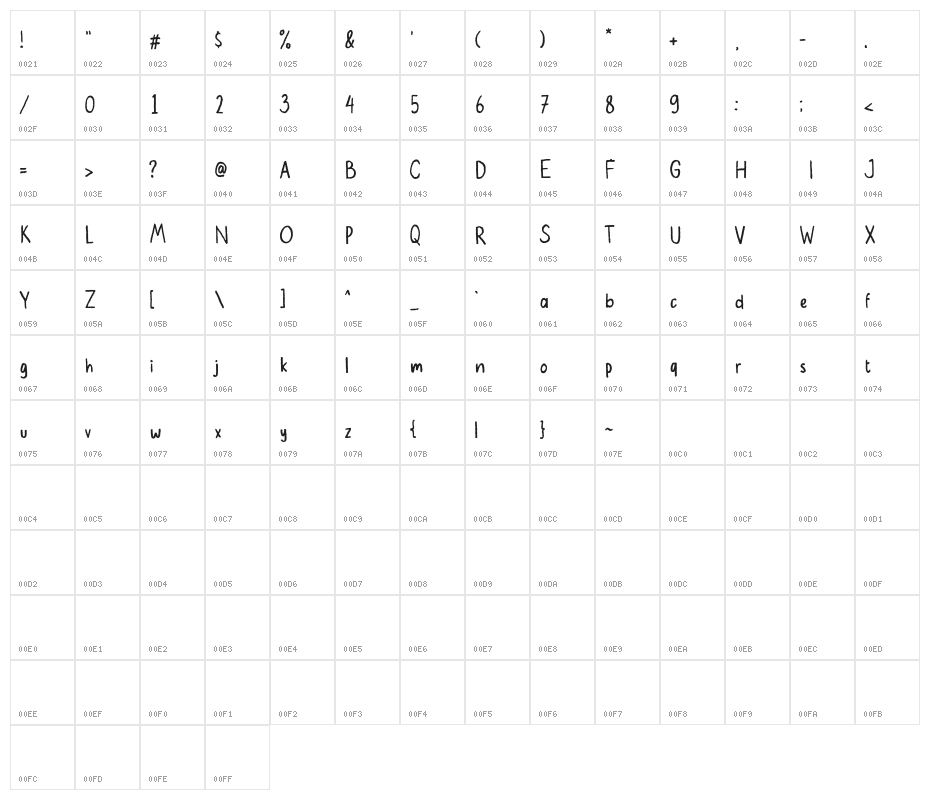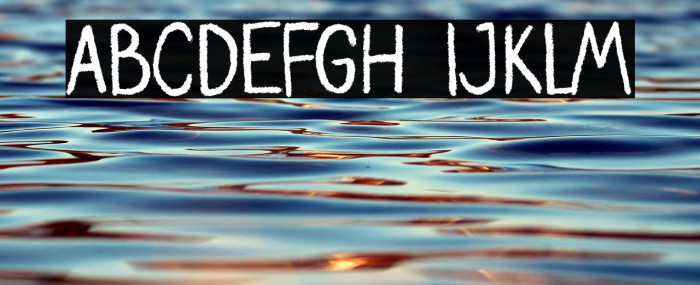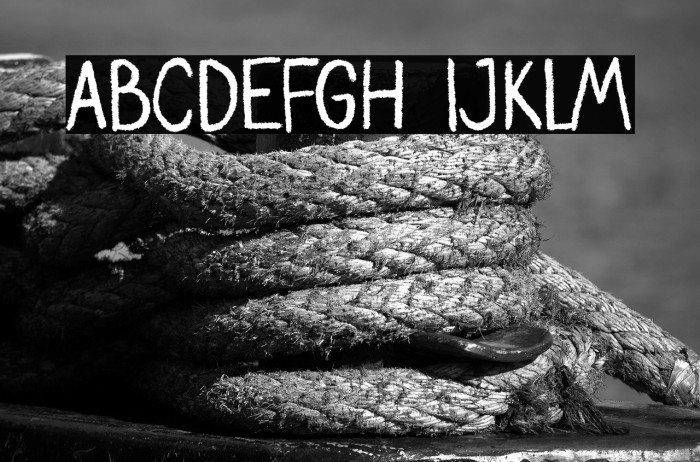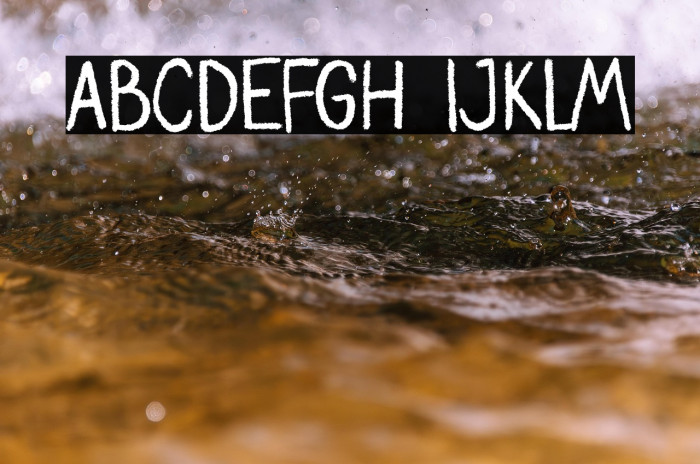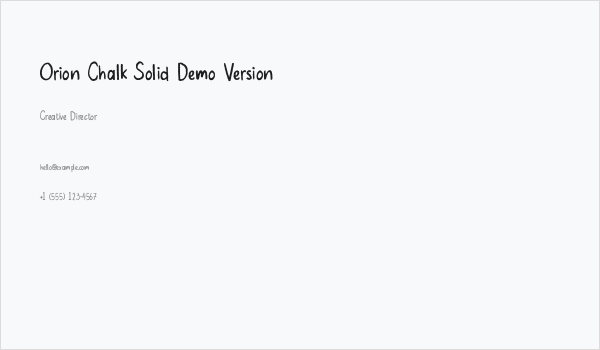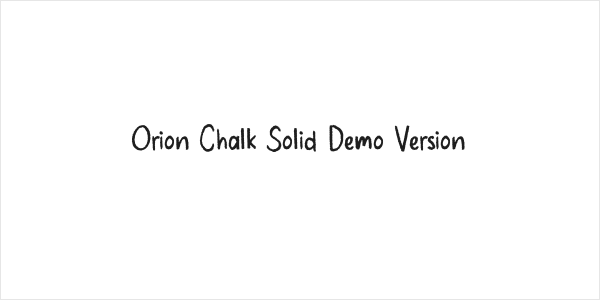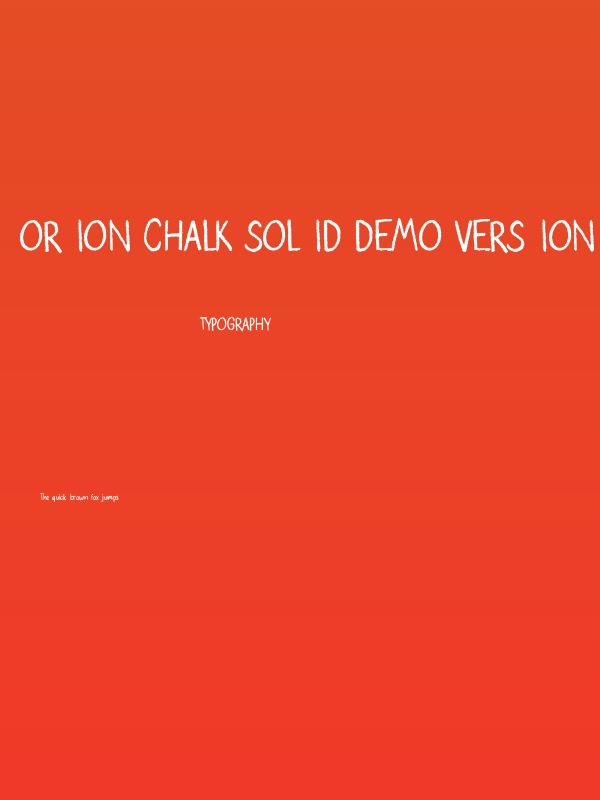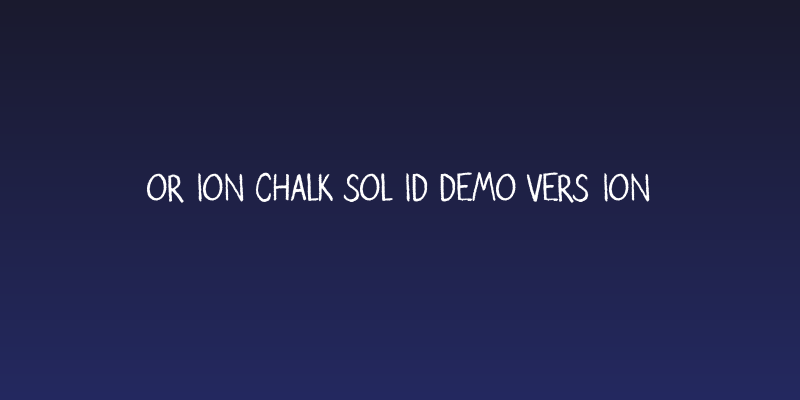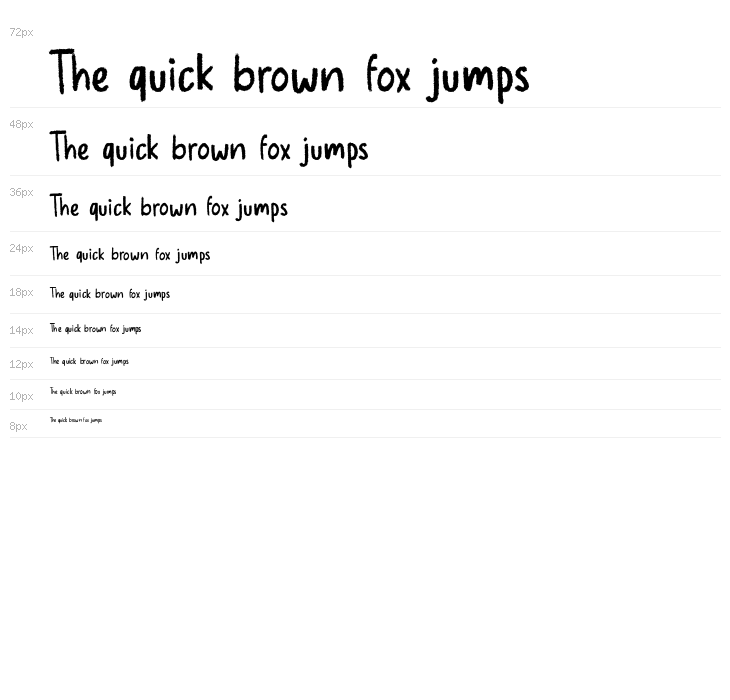
Orion Chalk Solid Demo Version Font
Orion Chalk Solid Demo Version Description
This font exudes a playful, hand-drawn aesthetic reminiscent of chalk writing on a blackboard. The characters are slightly irregular, adding a casual and approachable feel. The uppercase letters are bold and prominent, while the lowercase letters maintain a consistent style with a slightly smaller size. Numbers and special characters follow the same design, ensuring uniformity across all elements. The strokes are moderately thick, contributing to a medium contrast that enhances readability without sacrificing the informal charm. This font is perfect for projects that require a touch of whimsy and creativity, such as children's books, educational materials, or playful branding.
| Proposed Projects | Children's books, educational materials, playful branding, casual invitations. |